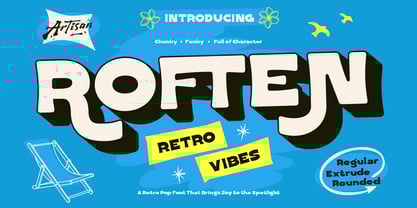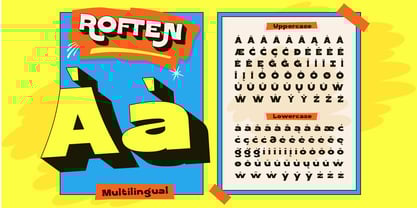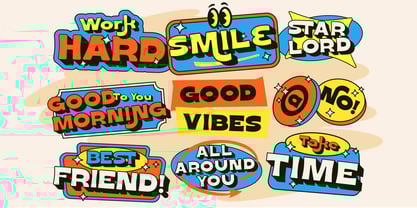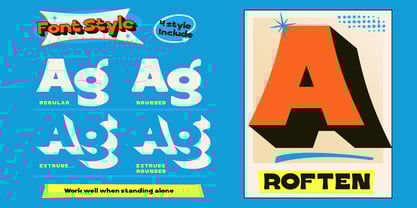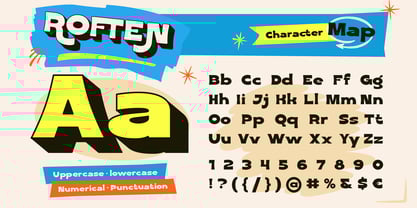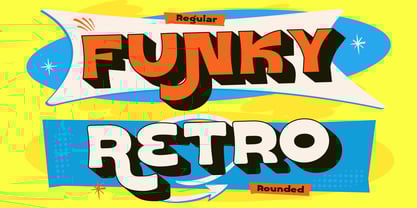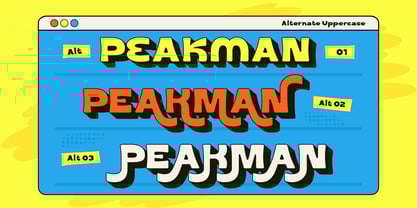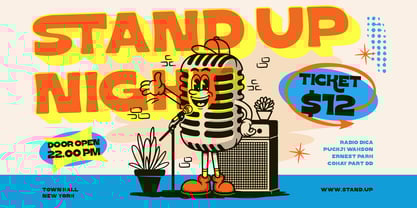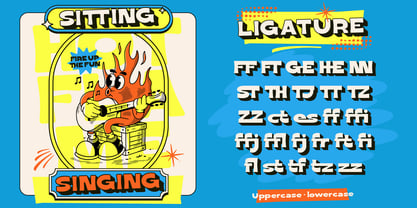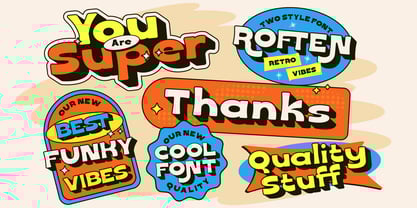
Roften
The Roften Font Family was designed by Meidy Meichico and published by Artisan Themes. Roften contains 4 styles and family package options. More about this family
Say hello to Roften, a funky retro font that instantly brings back the good vibes of the past! With its chunky shapes, bold curves, and playful personality, Roften is the perfect typeface when you want your design to feel fun, groovy, and full of character.
This font isn’t just about looking good—it’s about setting the mood. Whether you’re working on posters, social media graphics, packaging, or even merch designs, Roften adds that nostalgic pop-art energy that grabs attention right away. Pair the Regular style for a clean retro feel, the Rounded for a softer look, or go bold with the Extrude styles to make your text stand out in 3D.
Think summer festivals, vintage ads, funky t-shirt designs, or eye-catching branding—Roften slides right in to make your project unforgettable. It’s playful, it’s stylish, and it’s got all the retro vibes you’ve been looking for.
Bring the groove back to your design with Roften!